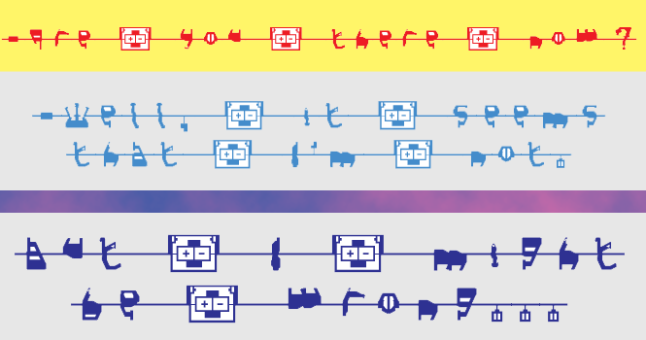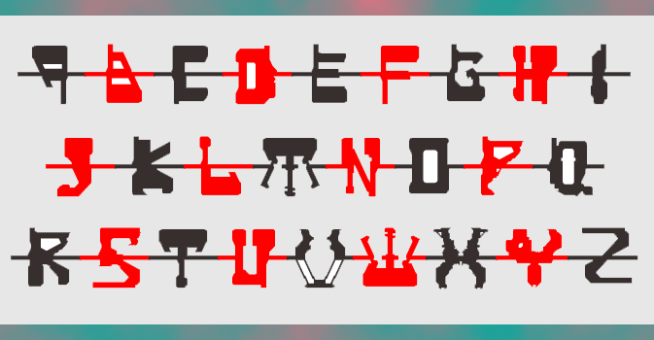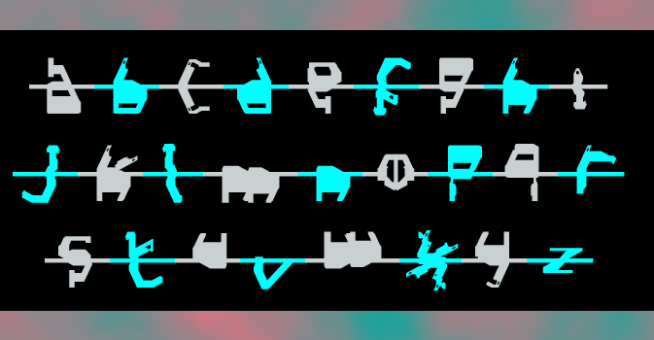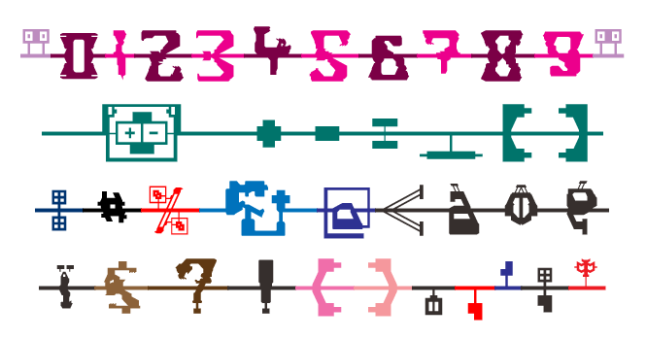
trAUMa 61 / Next Stop : Twilight Zone
"Next Stop : Twilight Zone", like all the "trAUMa" series, works at the frontier between Art & Type Design, Figuration & Abstraction, each font is a comprehensive world in which every glyph is a "living" entity. But put together they can produce your messages in the most accurate way.